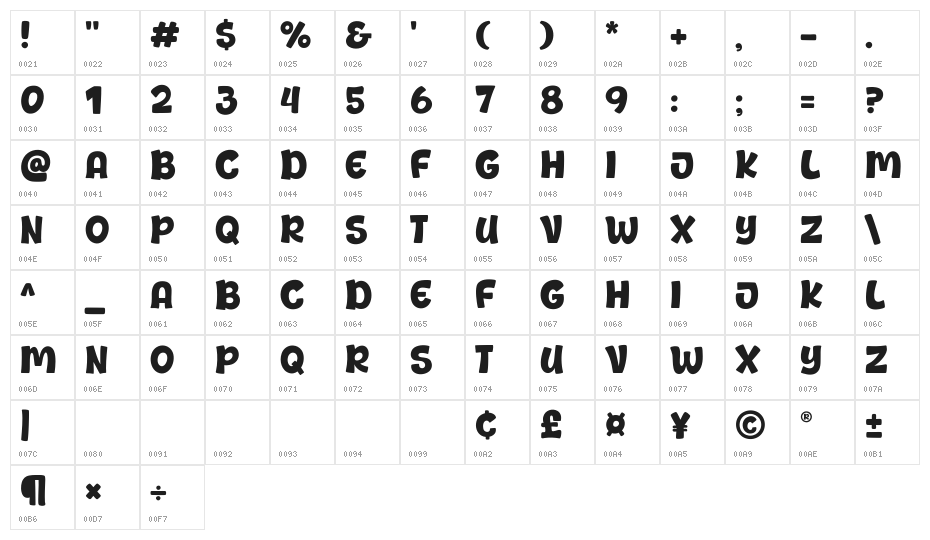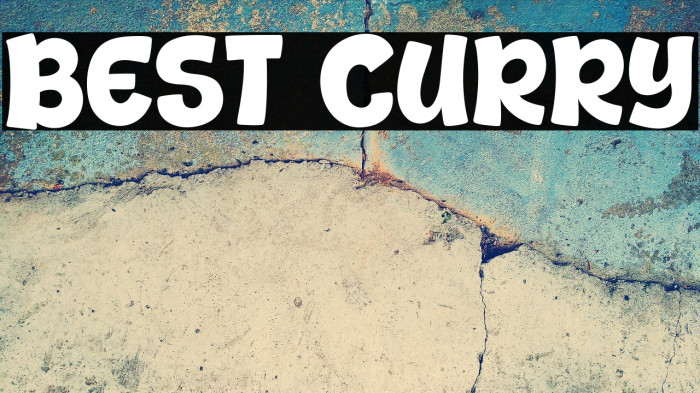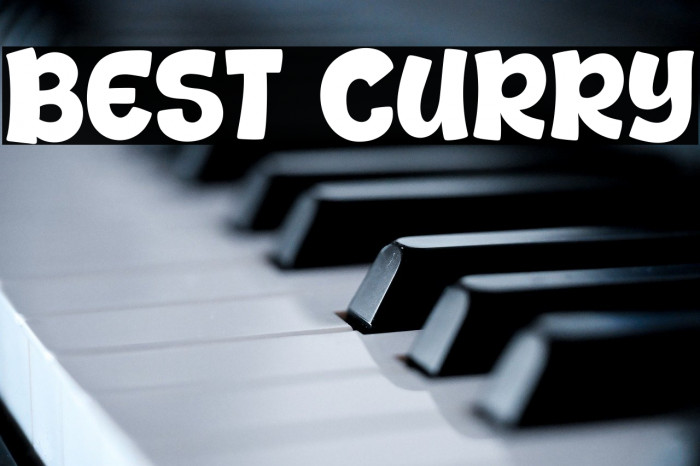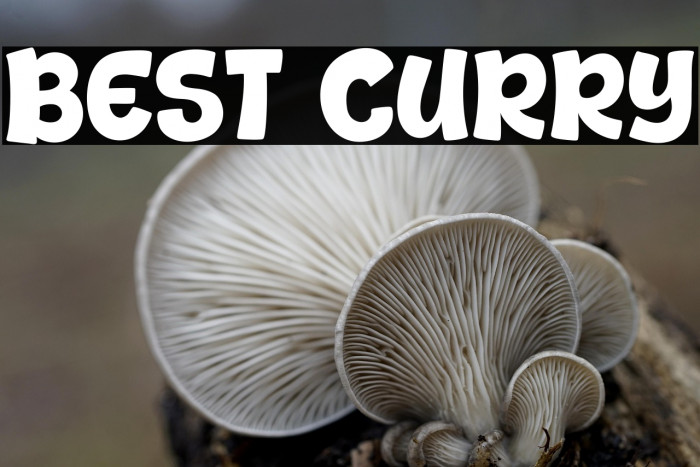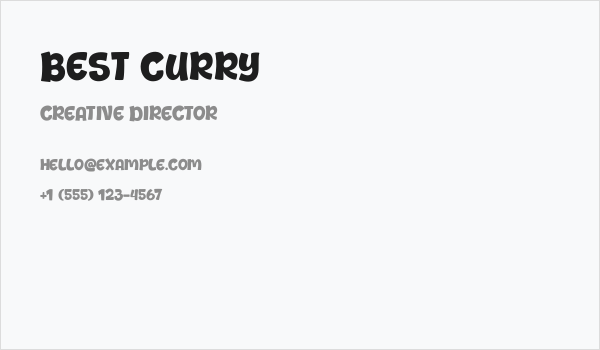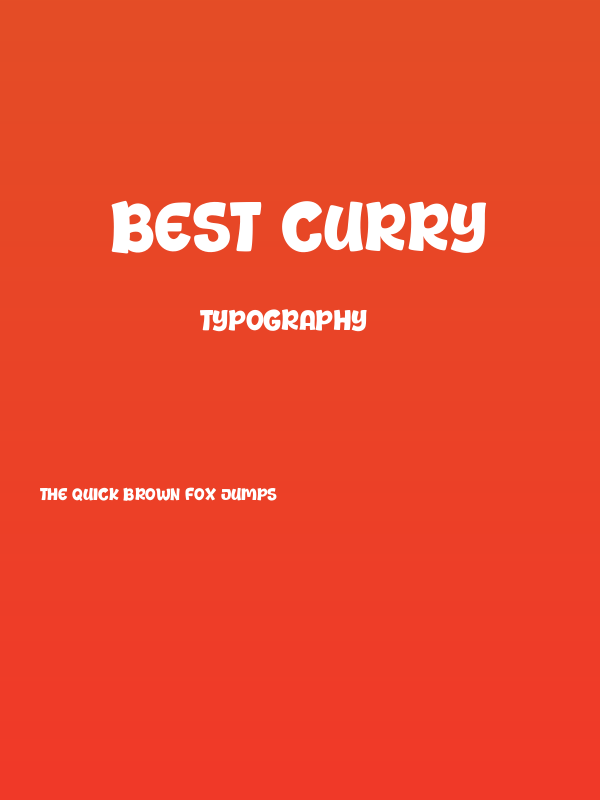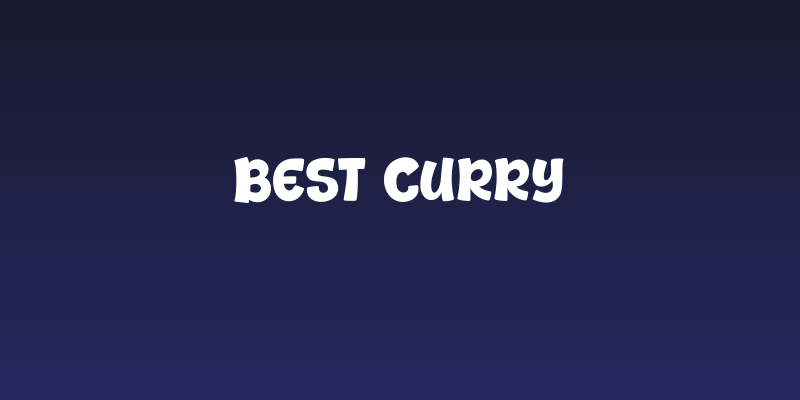
Best Curry Font
Best Curry Description
This font features bold, rounded characters with a playful and energetic style. The letters are thick and have a consistent weight, giving them a strong presence on the page. The rounded edges and slightly irregular shapes add a whimsical touch, making it ideal for projects that require a fun and approachable aesthetic. The numbers and special characters maintain the same bold and rounded style, ensuring consistency across all text elements. This font is well-suited for creative and informal designs, such as children's books, posters, and playful branding.
Overall StylePlayful
Proposed ProjectsIdeal for children's books, playful branding, posters, and creative designs.